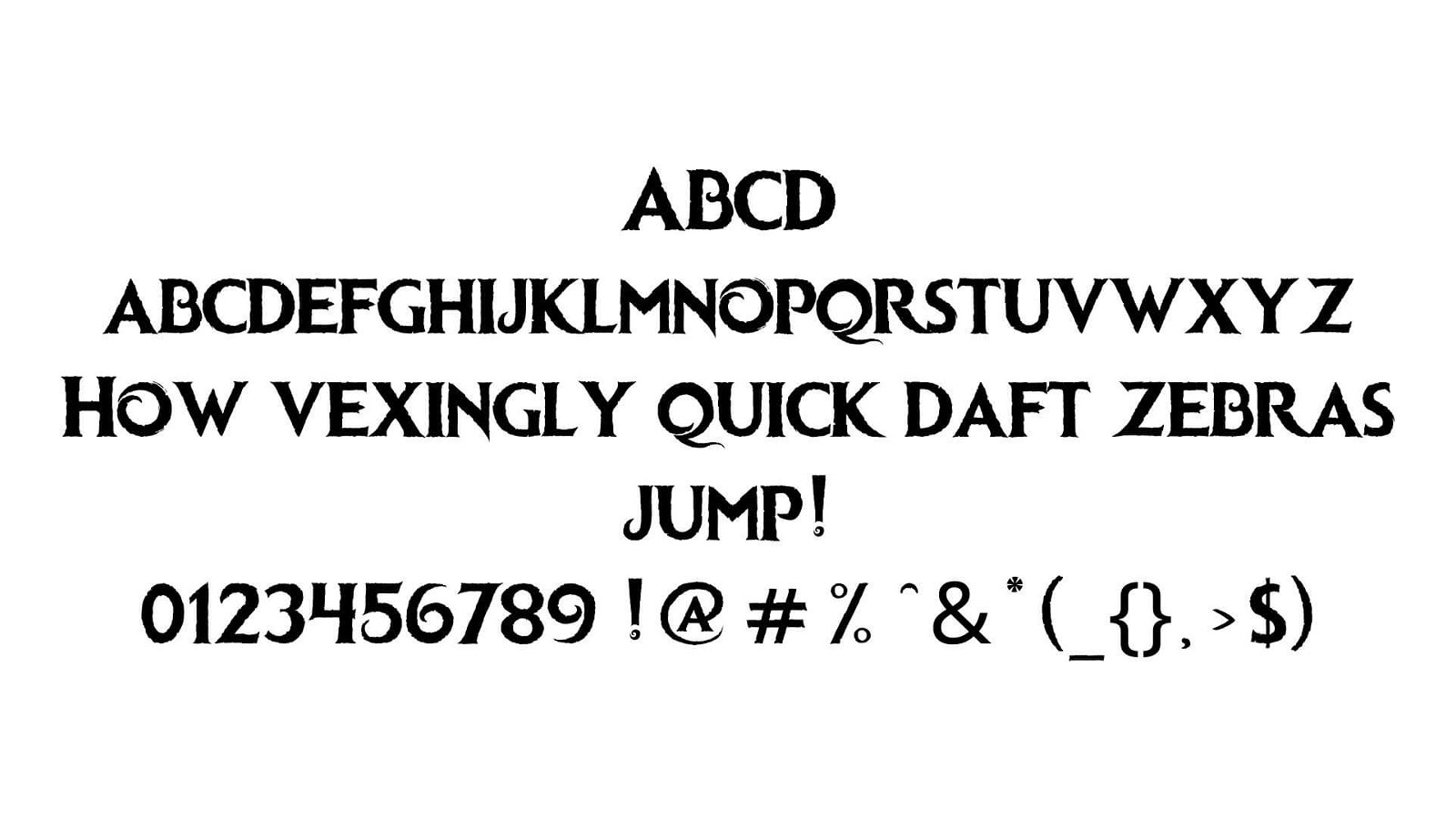
Frozen Font is the logo-based typeface that was used in the title of the famous American animated movie Frozen. Ice Kingdom Bold Font is the actual typeface that was used in this movie logo both of these fonts are identical.
This font contains some amazing characters along with some unique characters. Apart from the use in the logo of the movie this typeface was also inspired by people and designers and they used this font with ocean font and many more.
There are only Uppercase letters available in this font that we had seen in the logo and the space between them is perfect. A frozen font generator is also available that allows you to create a design without downloading this font.
Reason to Use Frozen Font
Using this font would be fun and distinguishable for different projects. You will find the best and most elegant appearance and that will help you in making the design more appreciating.
This font with Frozen Neutra Font for designs, headlines, logos, titles, and more. The characters of this typeface are easily readable and this will add clarity to the content and designs this is the best choice for designs that requires great readability.
Frozen Font View
You can get the idea of this font looking by looking at the below image.
Alternatives of Frozen Font
What Type of Font Is Frozen Font?
Frozen Font is the logo-based typeface that was used in the title of the famous American animated movie Frozen. Ice Kingdom Bold Font is the actual typeface that was used in this movie logo both of these fonts are identical.
Where Can You Use This Font?
This font can be used for designs, headlines, logos, titles, and more. The characters of this typeface are easily readable and this will add clarity to the content and designs both this is the best choice for designs that requires great readability.
Which Font Is Similar to Frozen Font?
The best alternative to this font would be Royal King Font. You can easily use this typeface in place of the this font.